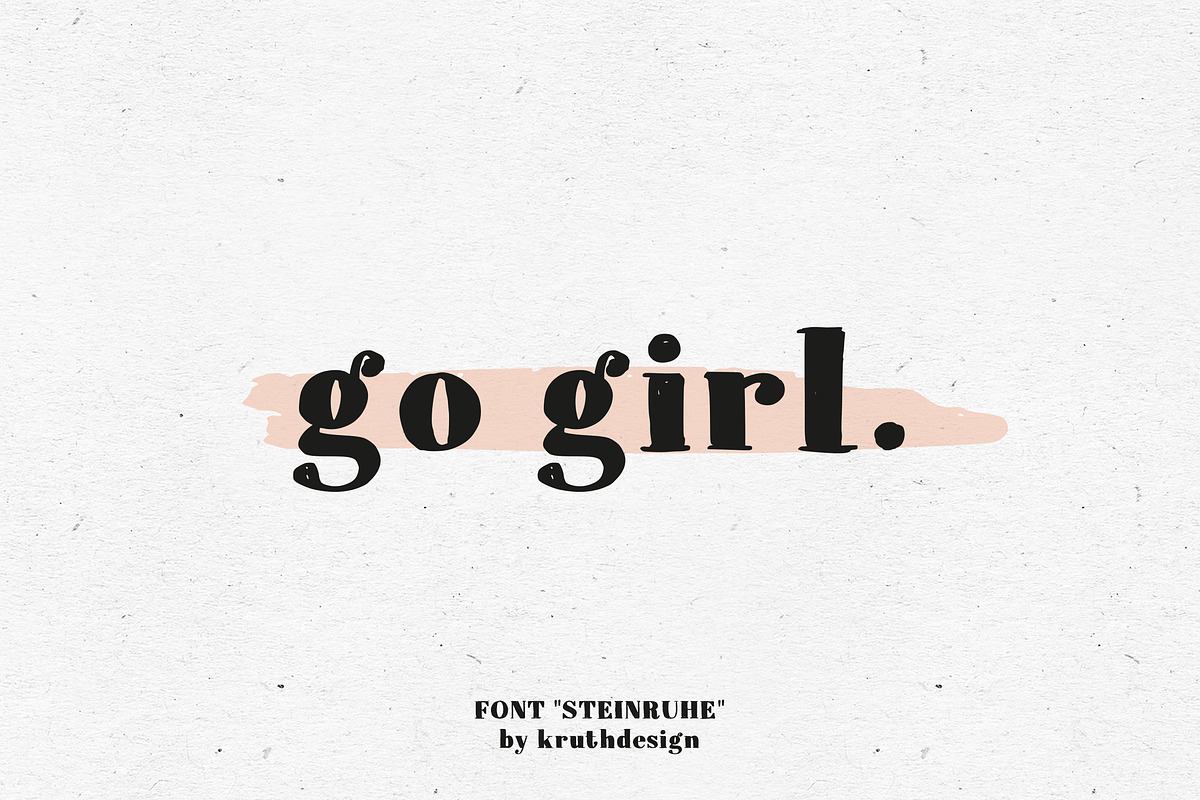
Please note, you must purchase this font for commercial use. However, you can easily download STEINRUHE FONT Free Download for personal use and testing purposes. STEINRUHE FONT is a bold and striking typeface with a modern, sophisticated design. Perfect for creating eye-catching headlines, logos, posters, and branding materials, this font combines strong geometric shapes with elegant curves. Whether you're designing a corporate brand, an event flyer, or a creative project, STEINRUHE FONT Free Download offers versatility and style to make your designs stand out. Download STEINRUHE FONT Free Download today and explore its potential before opting for a commercial license.